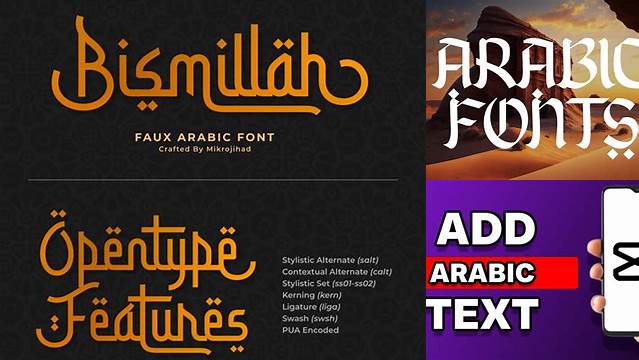
Add Arabic Fonts To Instagram: A Step-by-Step Guide
Adding Arabic fonts to your Instagram posts and stories can give your content a unique and stylish flair. It allows you to connect with a broader audience and express yourself creatively. This comprehensive guide will walk you through various methods to incorporate Arabic fonts seamlessly into your Instagram presence. Let's dive in!
1. Understanding the Basics of Fonts on Instagram
Before we get into the specifics, let's cover some basics. Instagram itself doesn't offer a direct way to change fonts within the app. This means you'll need to use external tools and apps to create the desired effect. Understanding this limitation is the first step in exploring creative workarounds. Keep in mind that the font you use needs to be supported across different devices and operating systems to ensure everyone sees your posts as intended. Choosing the right font can significantly enhance your message and appeal to your target audience. Also, consider the cultural relevance and appropriateness of the font when communicating with Arabic-speaking followers. So, basically, Instagram is a bit limited when it comes to native font options, but that's where the fun begins – we get to explore cool workarounds! You can't directly change the font within the Instagram app itself. Instead, you'll need to use external tools or apps to create your content with the desired Arabic font and then import it into Instagram. This is a common practice among content creators who want to add a unique touch to their posts and stories.
2. Using Third-Party Apps for Arabic Fonts
There are numerous third-party apps available on both iOS and Android that offer a wide range of Arabic fonts. Apps like Canva, Adobe Spark Post, and Phonto are popular choices. These apps allow you to create visually appealing graphics with custom text. To use them, simply download the app, select your desired Arabic font, add your text, and then save the image or video to your device. From there, you can easily upload it to Instagram. These apps often come with a variety of features, such as templates, filters, and graphic elements, allowing you to create professional-looking content without needing advanced design skills. Be sure to check the app's terms of service and privacy policy before using it, and always download apps from trusted sources to avoid security risks. Also, experiment with different fonts and layouts to find what works best for your brand and message. Don't be afraid to try new things and get creative! Using third-party apps is a fantastic way to inject personality and style into your Instagram content. Guys, there are tons of apps out there that make this super easy! These apps provide a user-friendly interface and a wide selection of Arabic fonts. Canva is a great option because it offers pre-designed templates, making it simple to create stunning visuals even if you're not a design expert. Just add your text in Arabic, tweak the design to your liking, and save it to your phone. Then, you can upload it directly to Instagram. Similarly, Adobe Spark Post is another excellent choice, particularly if you're already familiar with Adobe products. It offers a range of customizable templates and design tools. Phonto is also a solid pick, known for its simplicity and extensive font library. It's perfect for adding text to images quickly and efficiently.
3. Creating Custom Graphics with Arabic Text
If you're comfortable with graphic design software like Adobe Photoshop or Illustrator, you can create custom graphics with Arabic text. This method offers the most flexibility and control over the final result. Simply create your design, add your Arabic text using the desired font, and save the image in a format suitable for Instagram (e.g., JPEG or PNG). This approach allows you to create highly customized content that perfectly aligns with your brand's aesthetic. However, it does require more technical skills and time investment compared to using pre-made templates or simpler apps. Be sure to optimize your images for Instagram's dimensions and resolution to ensure they look their best. Also, consider the accessibility of your design, making sure the text is legible and the colors are visually appealing. Creating custom graphics can be a rewarding way to showcase your creativity and stand out on Instagram. This is for those of you who are design-savvy! Using software like Adobe Photoshop or Illustrator gives you the ultimate control over your visuals. You can create exactly what you envision. You'll need to have these programs installed on your computer and be familiar with their basic functions. Start by creating a new document with Instagram's recommended image dimensions (1080 x 1080 pixels for square posts). Then, add your background image or design elements. Next, use the text tool to add your Arabic text. Choose your font, adjust the size and color, and position it where you want it. Finally, save your image as a JPEG or PNG file and upload it to Instagram. It might sound intimidating, but once you get the hang of it, it's a great way to create professional-looking content.
4. Using Online Font Generators for Instagram Bio
Your Instagram bio is a crucial part of your profile, and adding a unique Arabic font can make it stand out. Several online font generators allow you to convert your text into stylish Arabic fonts that you can then copy and paste into your bio. These generators typically offer a variety of font styles, from elegant and traditional to modern and playful. Simply type your text into the generator, choose your desired font, and copy the generated text. Then, paste it into your Instagram bio. Keep in mind that some fonts may not display correctly on all devices, so it's a good idea to check how your bio looks on different devices before finalizing it. Also, be mindful of the length of your bio, as Instagram has a character limit. Using online font generators is a quick and easy way to add a touch of personality to your Instagram profile. Online font generators are a super easy way to jazz up your bio! These tools let you type in your text, choose from a bunch of different Arabic-inspired fonts, and then copy and paste the fancy text right into your Instagram bio. A popular one is LingoJam. Just type your bio text into the left box, and it will show you a bunch of different font options on the right. Copy the one you like best and paste it into your Instagram bio. Keep in mind that some of these fonts use Unicode characters, which aren't universally supported. So, it's always a good idea to check how your bio looks on different devices to make sure the font displays correctly.
5. Copy and Paste Arabic Fonts
One of the simplest methods is to find Arabic fonts online and copy and paste them into your Instagram posts or stories. Websites that offer Unicode fonts can be a great resource for this. This method is quick and easy, but it's important to ensure that the font you choose is compatible with Instagram and displays correctly on different devices. To do this, simply search for Arabic Unicode fonts online, copy the desired text, and paste it into your Instagram caption or story. Check how it looks on your own device and, if possible, on other devices as well. If the font doesn't display correctly, try a different one. Copying and pasting Arabic fonts is a basic but effective way to add variety to your content. It's a straightforward technique, but you need to be a little careful. Basically, you find Arabic Unicode fonts online, copy them, and paste them into your Instagram posts. The catch is that not all devices support these fonts equally, so what looks great on your phone might look like a bunch of squares on someone else's. A reliable site to find these fonts is Unicode Text Converter. Just type in your text, and it will generate the text in different Unicode styles. Copy the style you like and paste it into your Instagram caption or story. Before posting, always double-check how it looks on your device and ask a friend to check it on theirs too. If you see any weird characters, it means the font isn't supported, and you should try a different one.
6. Using Keyboard Apps with Arabic Fonts
Some keyboard apps offer built-in Arabic fonts, allowing you to type directly in Arabic with a stylish font. These apps can be convenient for adding Arabic text to your Instagram posts and stories without having to switch between different apps. To use them, simply download and install the keyboard app, enable it in your device's settings, and select it as your default keyboard. Then, you can start typing in Arabic with the desired font. Be sure to choose a keyboard app that is reputable and secure, as keyboard apps can potentially access sensitive information. Also, check the app's reviews and ratings before downloading it to ensure it's reliable and user-friendly. Using keyboard apps with Arabic fonts can streamline your content creation process and make it easier to communicate with your Arabic-speaking audience. Think of it as having a secret weapon right at your fingertips! These apps come with a range of Arabic fonts built right into the keyboard. All you have to do is download the app, enable it in your phone's settings, and switch to that keyboard when you're typing on Instagram. A popular choice is the Arabic Keyboard by مزخرف النصوص. It's got a ton of cool fonts and makes it super easy to type in Arabic. Just be careful when choosing a keyboard app – make sure it's from a reputable developer to protect your privacy. Once you've got your keyboard set up, you can type directly in Arabic with your chosen font. This is especially handy for responding to comments or writing captions on the fly.
7. Instagram Story Fonts with Arabic Support
While Instagram's native story fonts are limited, some of them do support Arabic characters. Experiment with different fonts to see which ones display Arabic text correctly. You can also use the text tool to add Arabic words or phrases to your stories, even if the entire font doesn't support Arabic. Additionally, you can use stickers or GIFs with Arabic text to add visual interest to your stories. Be creative and explore different ways to incorporate Arabic elements into your Instagram stories. Even though Instagram's built-in fonts are a bit basic, they sometimes offer surprising support for Arabic characters. The trick is to experiment! Open up Instagram Stories and start typing in Arabic using the different font options. You might find that some of them display Arabic letters perfectly. Even if a font doesn't fully support Arabic, you can still use it to add a few Arabic words or phrases to your story. For example, you could use a standard font for the main text and then add a pop of Arabic flair with a word or two. Instagram also has a ton of stickers and GIFs with Arabic text. Just search for Arabic keywords in the sticker or GIF search bar, and you'll find all sorts of fun options to spice up your stories.
8. Best Arabic Fonts for Instagram
Choosing the right Arabic font can significantly impact the visual appeal of your Instagram content. Some popular choices include Kufi, Naskh, Thuluth, and Diwani. Each font has its own unique style and characteristics, so experiment with different fonts to find the one that best suits your brand and message. Consider the readability of the font, as well as its aesthetic appeal. A font that is both beautiful and easy to read will be the most effective in engaging your audience. Also, be mindful of the cultural relevance of the font, especially when communicating with Arabic-speaking followers. Choosing the right Arabic font can make a huge difference in how your content is perceived. Kufi is a classic choice, known for its bold and angular style. It's great for headlines and short phrases. Naskh is another popular option, valued for its readability and elegance. It's often used in books and newspapers. Thuluth is a more decorative font, characterized by its flowing curves and ornate details. It's perfect for adding a touch of luxury to your designs. Diwani is a calligraphic font with a distinctive, handwritten feel. It's ideal for creating a personal and artistic touch. When selecting a font, think about your brand's personality and the message you want to convey. A modern brand might opt for a clean and minimalist font, while a more traditional brand might prefer a classic and elegant font.
9. Troubleshooting Arabic Font Display Issues
Sometimes, Arabic fonts may not display correctly on Instagram due to compatibility issues or encoding problems. If you encounter this issue, try using a different font, checking your device's language settings, or clearing your Instagram cache. If the problem persists, you may need to contact Instagram support for assistance. Also, be sure to test your content on different devices to ensure it looks consistent across all platforms. Don't panic if your Arabic fonts aren't showing up correctly! This can happen for a few reasons. First, make sure your device's language settings are set to Arabic or a language that supports Arabic characters. Sometimes, if your device is set to a language that doesn't support Arabic, it might not display the fonts properly. Another thing to try is clearing your Instagram cache. This can help resolve any temporary glitches that might be causing the issue. If you've tried all of these steps and the fonts still aren't displaying correctly, it's possible that the font itself isn't compatible with Instagram. In this case, try using a different Arabic font. If all else fails, reach out to Instagram support for help. They might be able to provide additional guidance or resolve any underlying issues.
By following these tips and techniques, you can seamlessly integrate Arabic fonts into your Instagram presence and create content that resonates with your audience. Happy creating!